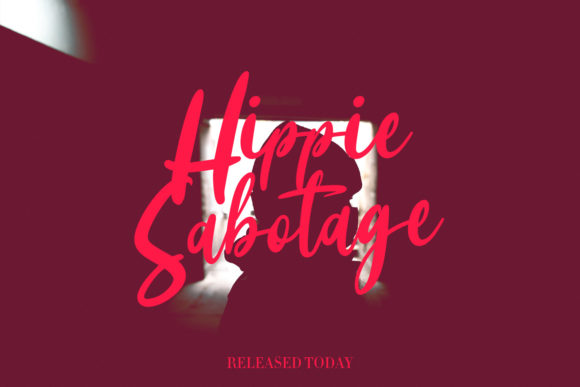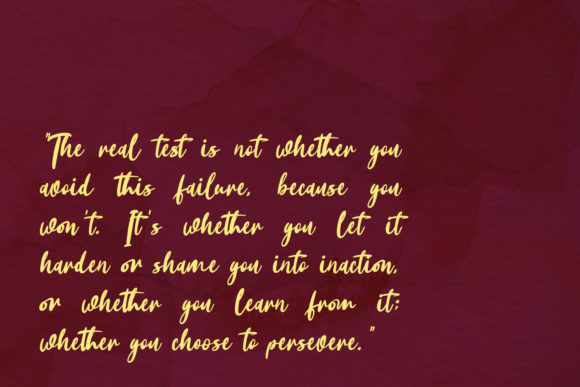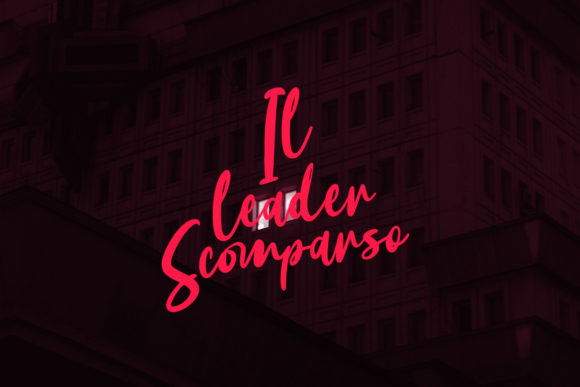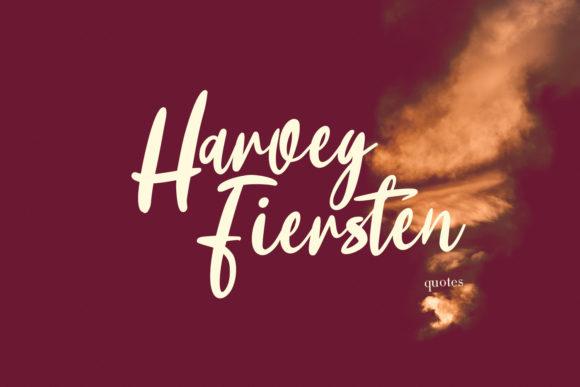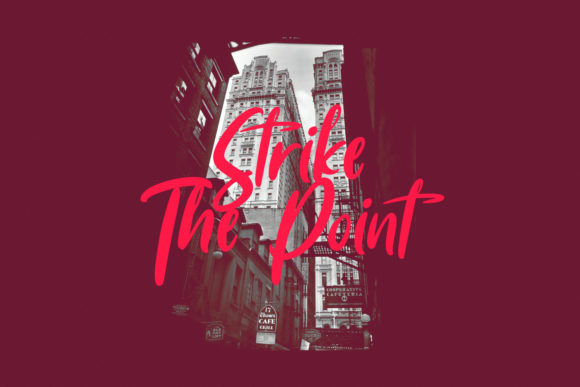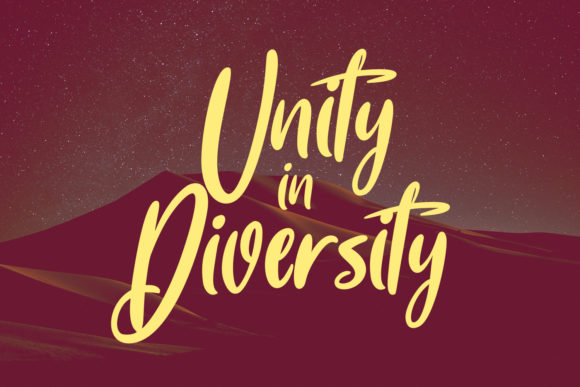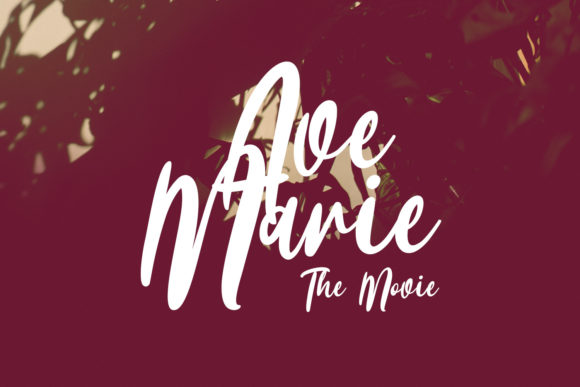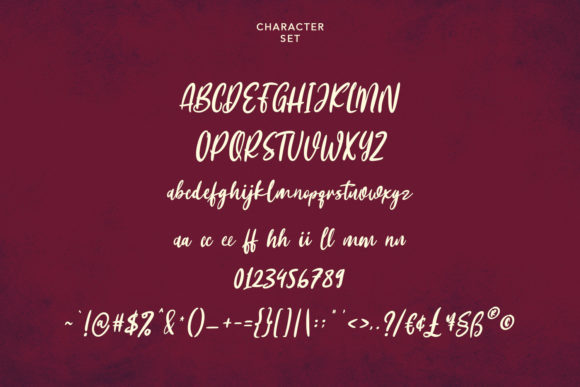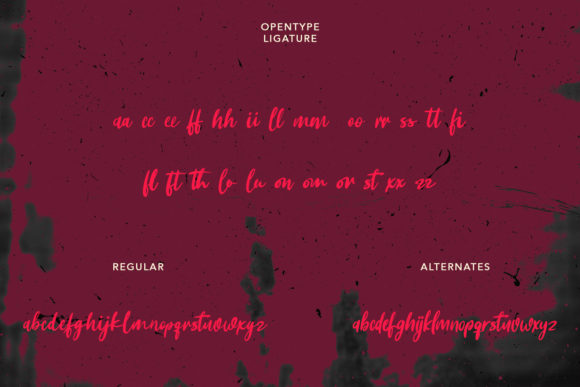
Avellionts Font
About Avellionts Font
Introducing “Avellionts,” a lovely and timeless handwritten font that exudes elegance and charm. With its graceful strokes and unique letterforms, this font is the perfect choice for creating eye-catching logos, branding materials, and inspiring quotes.
Avellionts adds a touch of sophistication to any design project. Each letter is meticulously crafted with a unique and beautiful touch, allowing your designs to come alive with personality and style. Whether you’re designing a logo for a luxury brand, creating a captivating quote graphic, or developing a memorable branding package, Avellionts will elevate your designs and leave a lasting impression.
The timeless quality of Avellionts makes it suitable for various applications. It is equally at home in elegant wedding invitations, stylish stationery, inspiring social media posts, or any other design that requires a touch of refinement. The versatility of this font allows it to adapt to different design styles and aesthetics, making it a valuable asset in your creative toolkit.
Avellionts is designed to capture attention and evoke emotion. Its flowing and organic letterforms give your text a natural and effortless appearance, enhancing readability while maintaining a sense of elegance. The font’s balanced spacing and proportions ensure that each word and phrase is visually pleasing and harmonious.
Whether you’re a professional designer or someone with a passion for creativity, Avellionts provides you with a versatile and beautiful typeface to bring your ideas to life. Its timeless appeal and unique letterforms make it a go-to choice for creating captivating and impactful designs.
In summary, Avellionts is a lovely and timeless handwritten font that adds a touch of elegance and charm to your designs. Its unique letterforms and beautiful touch make it the perfect choice for eye-catching logos, branding materials, and inspiring quotes. With Avellionts, you can create designs that are both captivating and memorable.